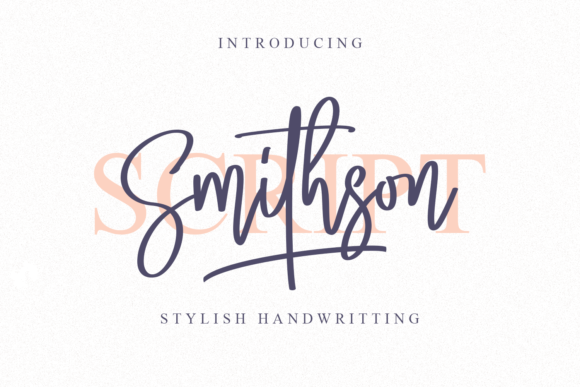
Introducing Smithson Font, the script font that will elevate your design game to the next level! Created by Nun Creatype, this exquisite handwritten font is masterfully designed to become your true favorite.
The Smithson Font is perfect for those who are looking to add a touch of elegance and sophistication to their designs. Its classy calligraphic influences are combined with a contemporary and fresh vibe, making it perfect for both traditional and modern projects.
But that's not all! This font is PUA encoded, which means you can access all glyphs and swashes with ease! This feature allows you to add even more creativity to your projects and take them to the next level.
Whether you're designing wedding invitations, greeting cards, or social media graphics, Smithson Font is the perfect choice. It will give your designs a unique and personalized touch that will make them stand out from the crowd.